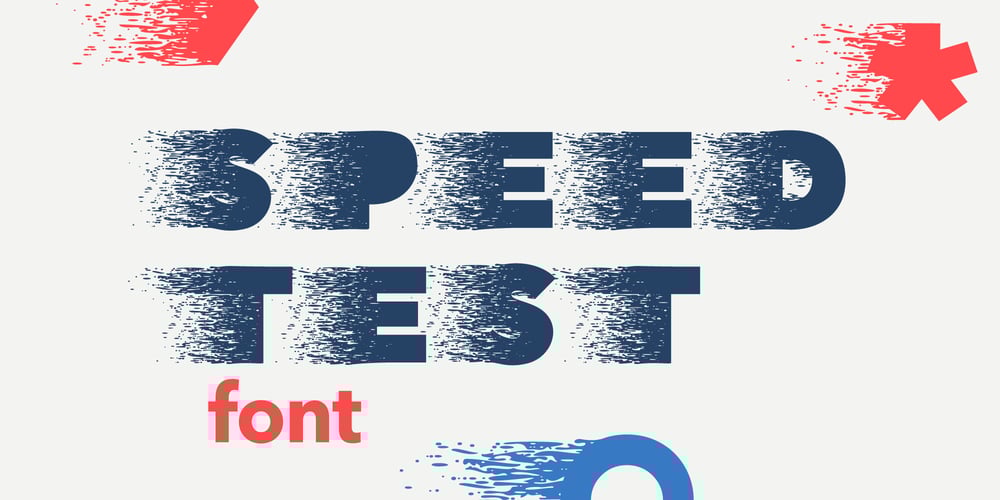
Speed Test Font Family was designed by Roman Korolev and published by Kaer. Speed Test contains 1 styles and family package options. Hey! I’m happy to introduce to you my new font in fast speed style. Dry brush stroke with grunge lines and dots. Perfect for Taxi logo, Race poster, Sport identity, etc.You’ll get:* Uppercase (lowercase glyphs are the same)* Numbers* SymbolsPlease feel free to request any help you need: kaer.pro@gmail.comBest, Roman.